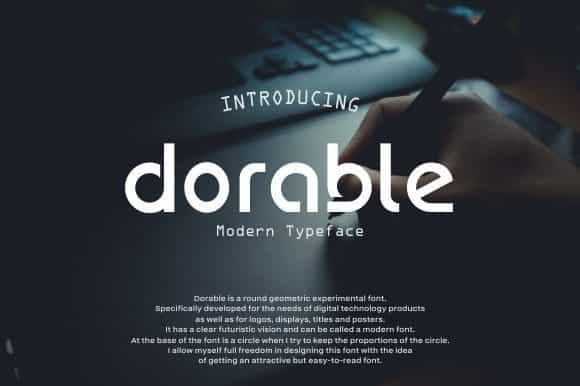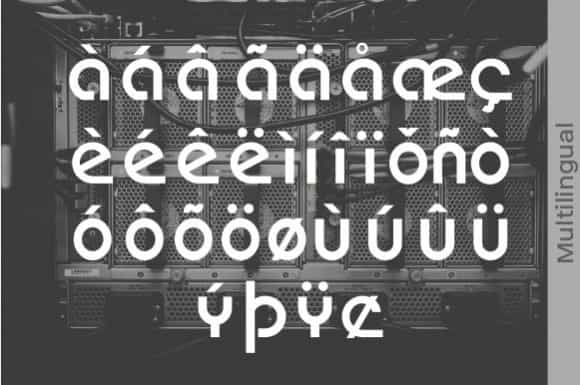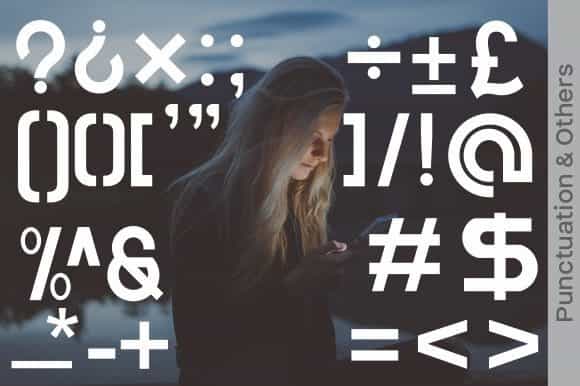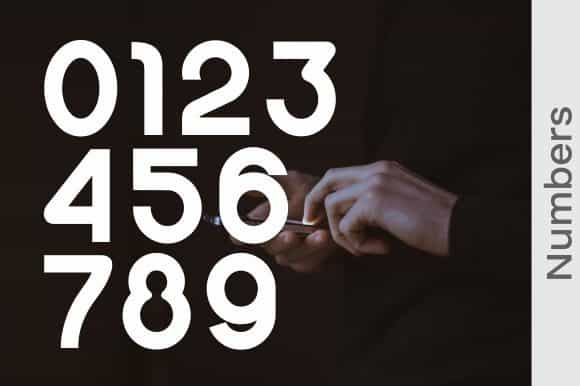
Dorable is a kind of round and modern display font. It is characterized by a very traditional look, but it still has a friendly atmosphere. Feel the uniqueness of its look and get inspired! Dorable is the display stencil font that can be used in many projects and it looks quite contemporary. It is a great solution for designers who want to make a lasting impression. A simple but significant.